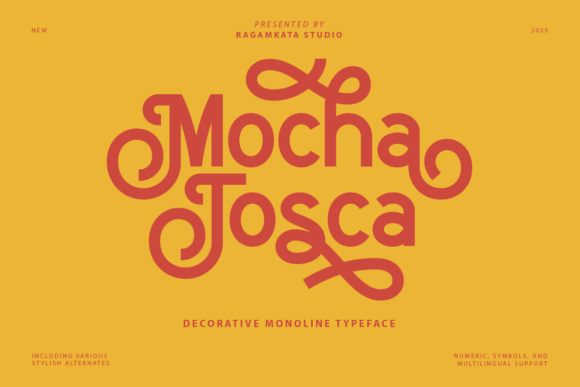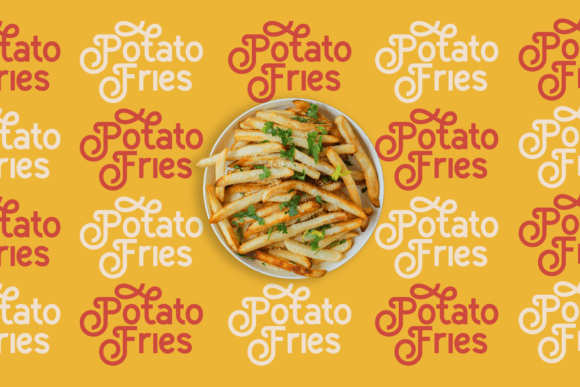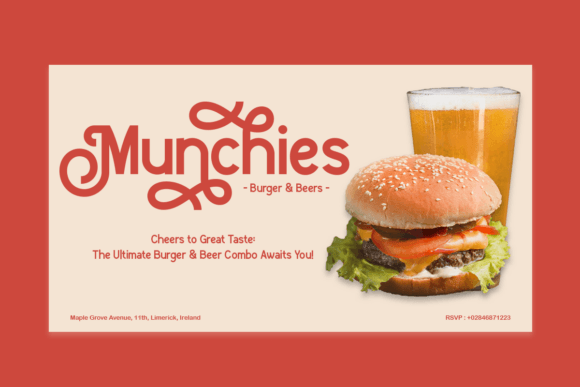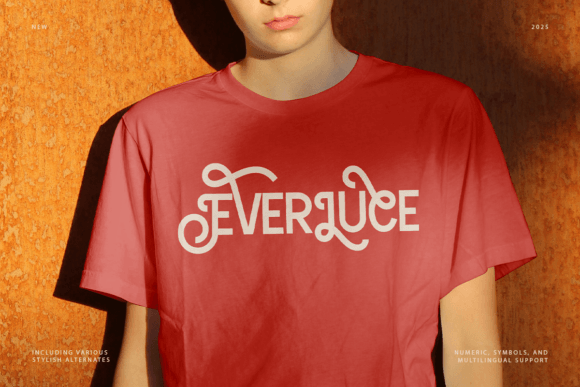
Mocha Tosca Font
About the Mocha Tosca Font
Elevate your designs with Mocha Tosca Font, a font that combines sophistication with readability. Mocha Tosca – decorative monoline typeface with stylistic alternatives. Mocha Tosca has an Open Type feature to access a large selection of unique alternative letters and to make it easier for you to create.great for product logo, poster, headline, card logo, clothing brand logo, lettering artwork, t-shirt designs, Vintage design, magazine, packaging, stationery and much more.
Mocha Tosca’s decorative nature makes it ideal for headlines, short text blocks in posters or packaging, and branding elements requiring a touch of vintage elegance. Its stylistic alternatives are perfect for creating unique logotypes and lettering artwork. However, its low x-height and decorative details make it unsuitable for body text or UI elements where readability is paramount. Avoid using it in long paragraphs or for extensive text blocks.
This font exudes a sophisticated, yet slightly playful personality. It’s a great choice for brands aiming for a retro-chic or vintage aesthetic, particularly those in fashion, cosmetics, or artisanal food. The inherent elegance of Mocha Tosca pairs well with clean sans-serif fonts like Montserrat or Open Sans for body text, providing a balanced contrast. For a more luxurious feel, consider pairing it with a classic serif like Garamond or Didot.
Alternatively, a geometric sans-serif such as Futura could offer a modern counterpoint to Mocha Tosca’s organic curves, creating a dynamic and unexpected combination. Avoid pairing it with other highly decorative fonts as this will likely overwhelm the design.
Mocha Tosca Font Usage Examples
Mocha Tosca Font Example